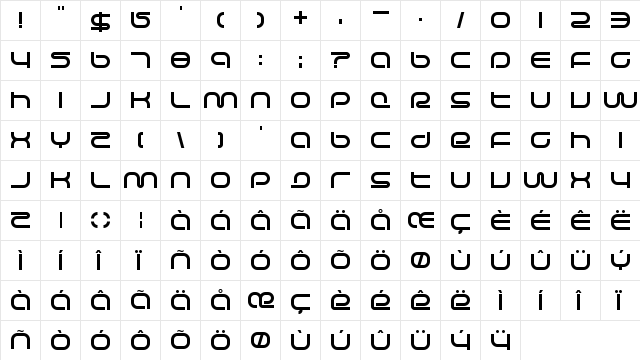
Life Support Bold
| Designer | Andreas Nylin |
Design Context for Life Support Typeface
Life Support is a composed and adaptable typeface that performs quietly and consistently across a wide range of design contexts. Its bold stroke weight gives it real presence on the page.